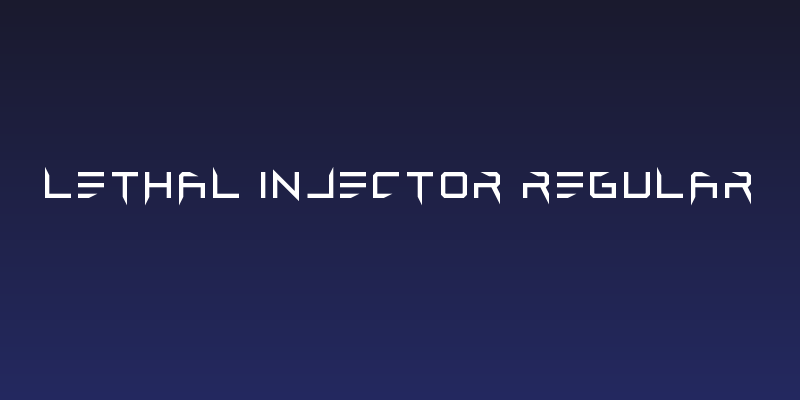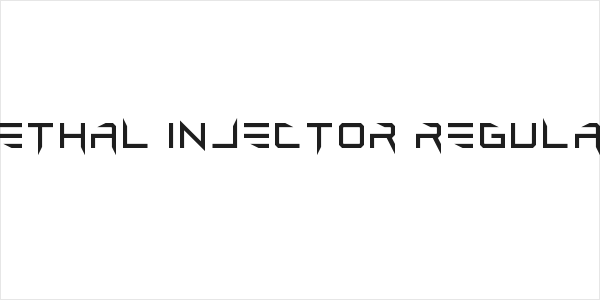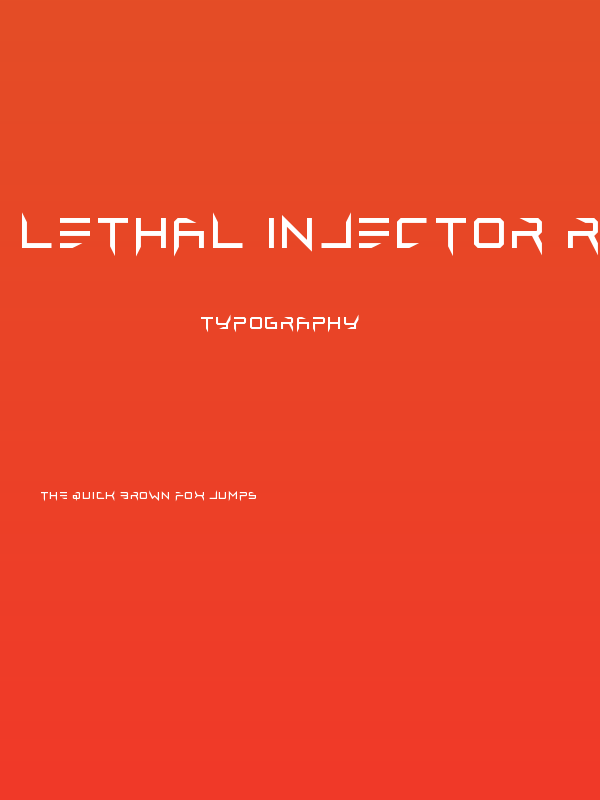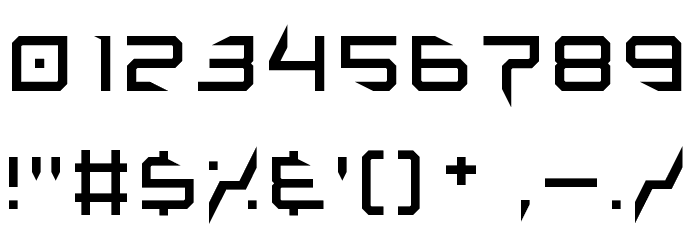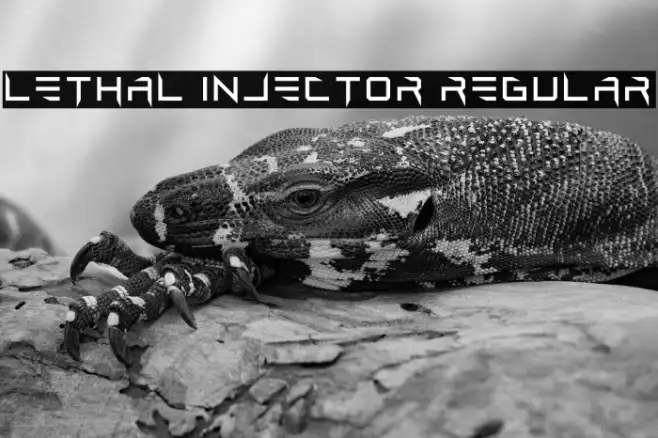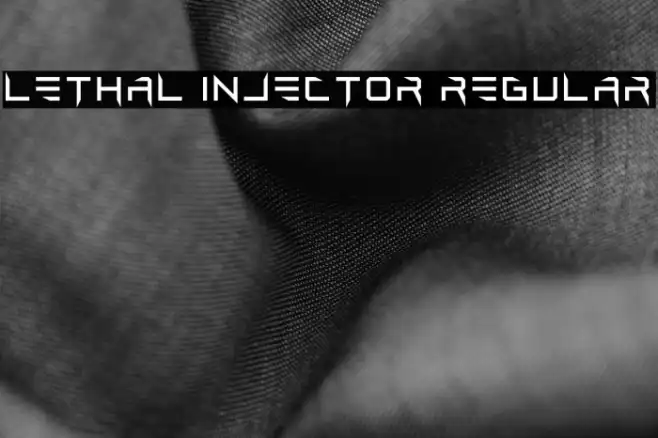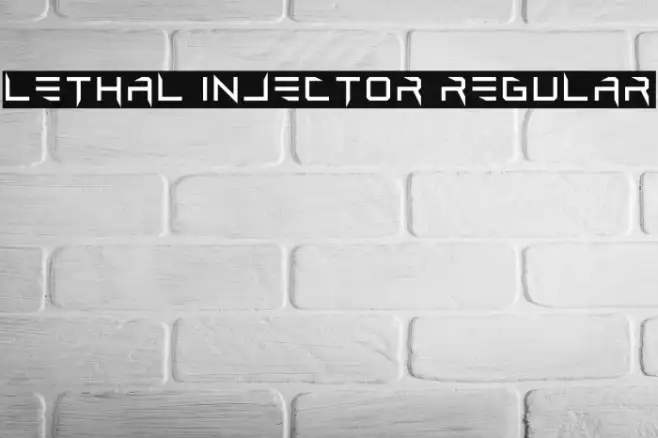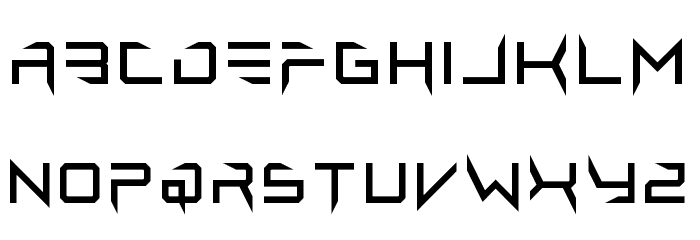
Lethal Injector Regular Font
Lethal Injector Regular Description
This font features a bold, angular design with sharp edges and geometric shapes, giving it a futuristic and edgy appearance. The characters are crafted with precision, exhibiting a consistent stroke width that enhances its modern aesthetic. The uppercase and lowercase letters maintain a uniform style, while the numerals and special characters integrate seamlessly into the overall design. The font's unique style makes it stand out, ideal for projects that require a strong visual impact.
| Proposed Projects | Ideal for sci-fi themed projects, video game titles, movie posters, and branding that requires a modern and striking look. |